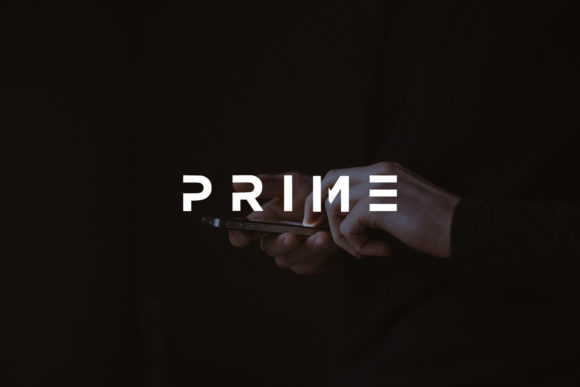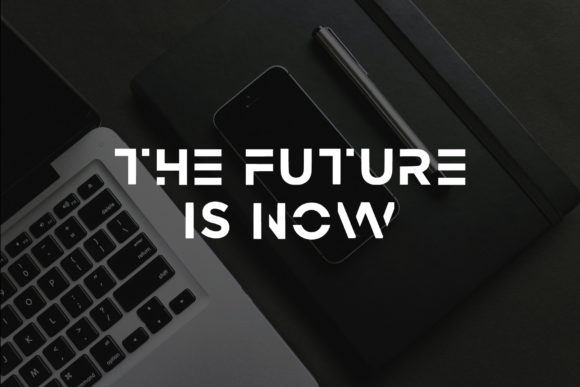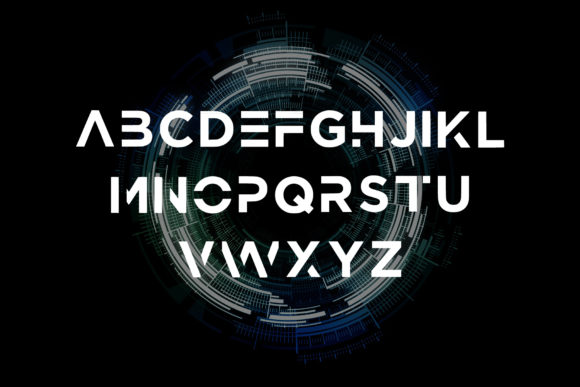
About Prime Font
Prime is a modern bold sans serif uppercase vector font with a futuristic style, geometric corners, perfect for technology themed designs.